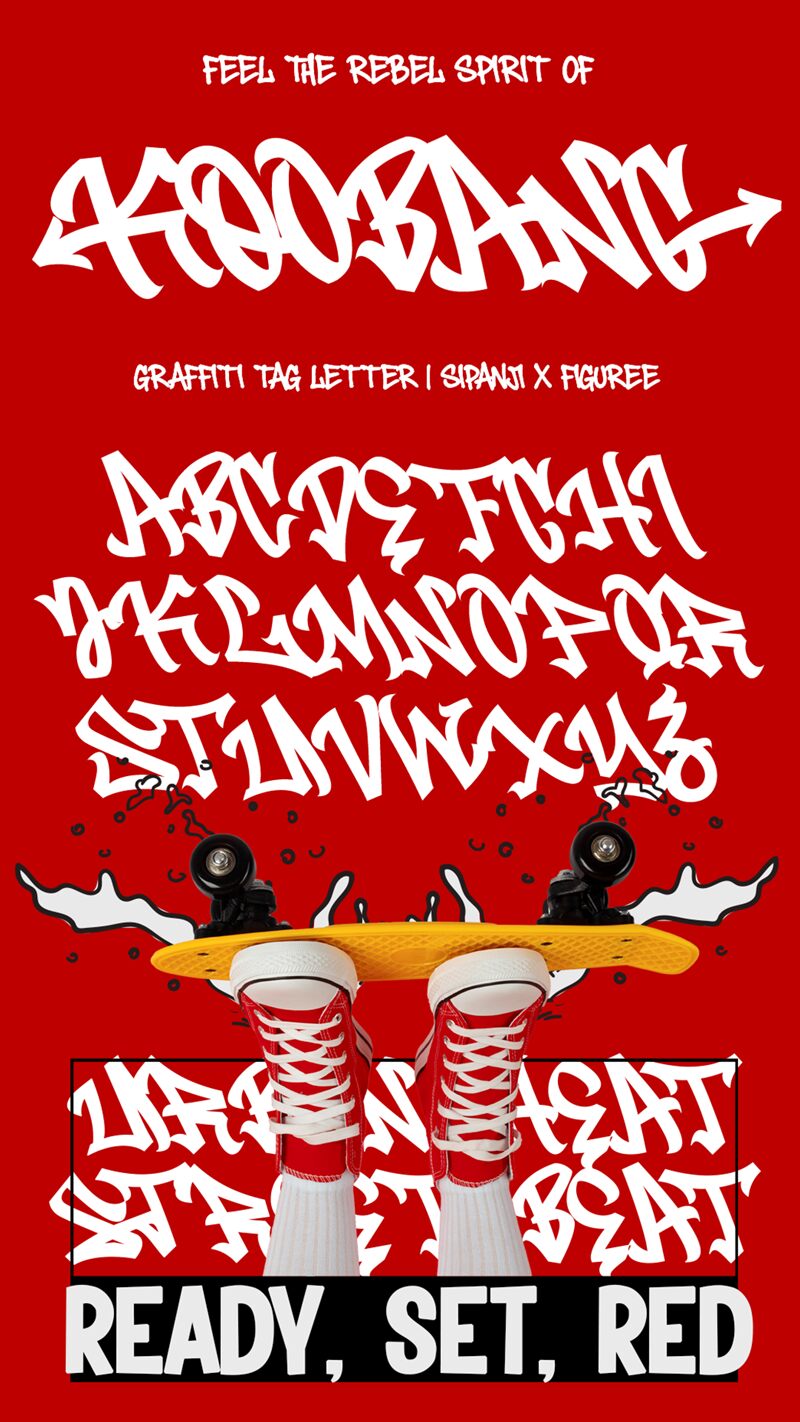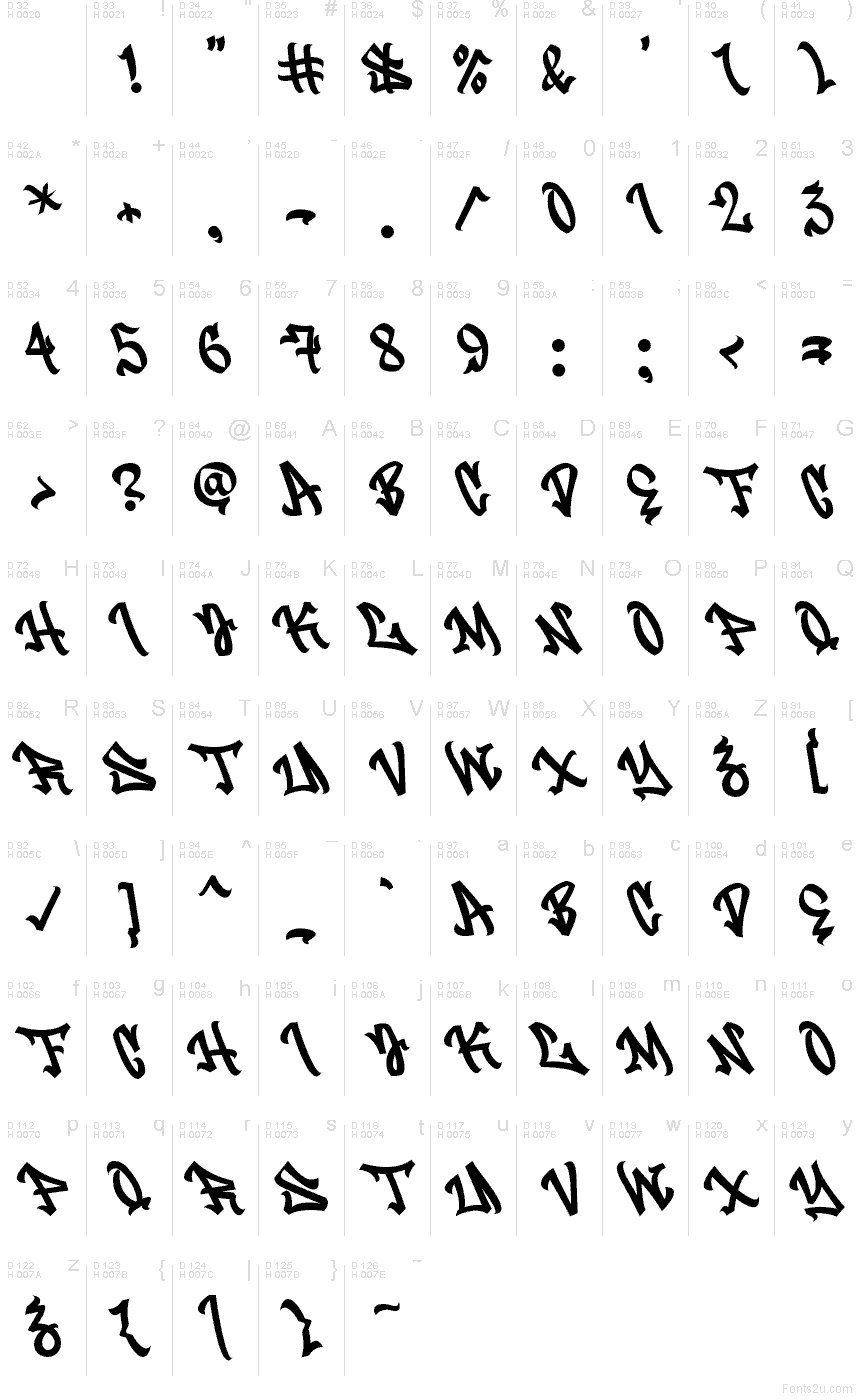
Koobang
Koobang font by Muhammad Panji Ramdhani of Cikareotype is a free graffiti font with thick, inky strokes that feel like they were dragged fast across a wall. The letters knot together in a lively chain, mixing sharp spikes with round, bouncy loops, so your wordmark looks loud even in plain black. It has that fresh-tag energy—raw, streetwise, and a little mischievous—without turning into unreadable chaos.
Using Koobang shines on skate and streetwear logos, album or mixtape covers, event flyers, gaming team identities, YouTube thumbnails, sticker packs, and poster headlines. This free font also works nicely on packaging when you want a hand-hit, urban bite. Pair it with a clean geometric sans for the small text, and give Koobang room—bigger sizes and a bit of extra spacing help the rhythm stay punchy.